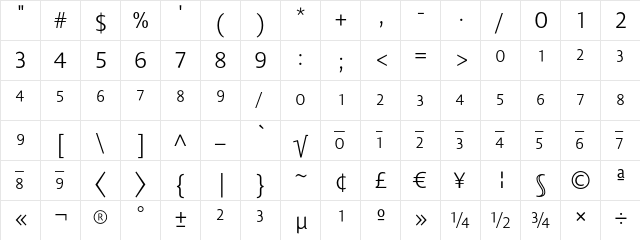
Lisboa Sans Expert Light Regular
Design Context for Lisboa Sans Expert Light Typeface
Lisboa Sans Expert Light is a composed and adaptable typeface that performs quietly and consistently across a wide range of design contexts. The delicate stroke weight brings airiness and refinement to layouts.